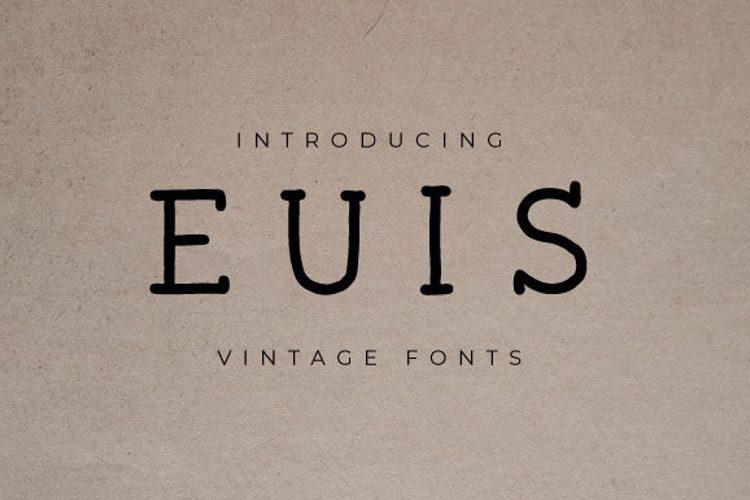
Euis Font
About Euis Font
Euis is a cool and simple slab serif font. Its natural and neat style makes it incredibly fitting to a large pool of designs. The only limit is your imagination!